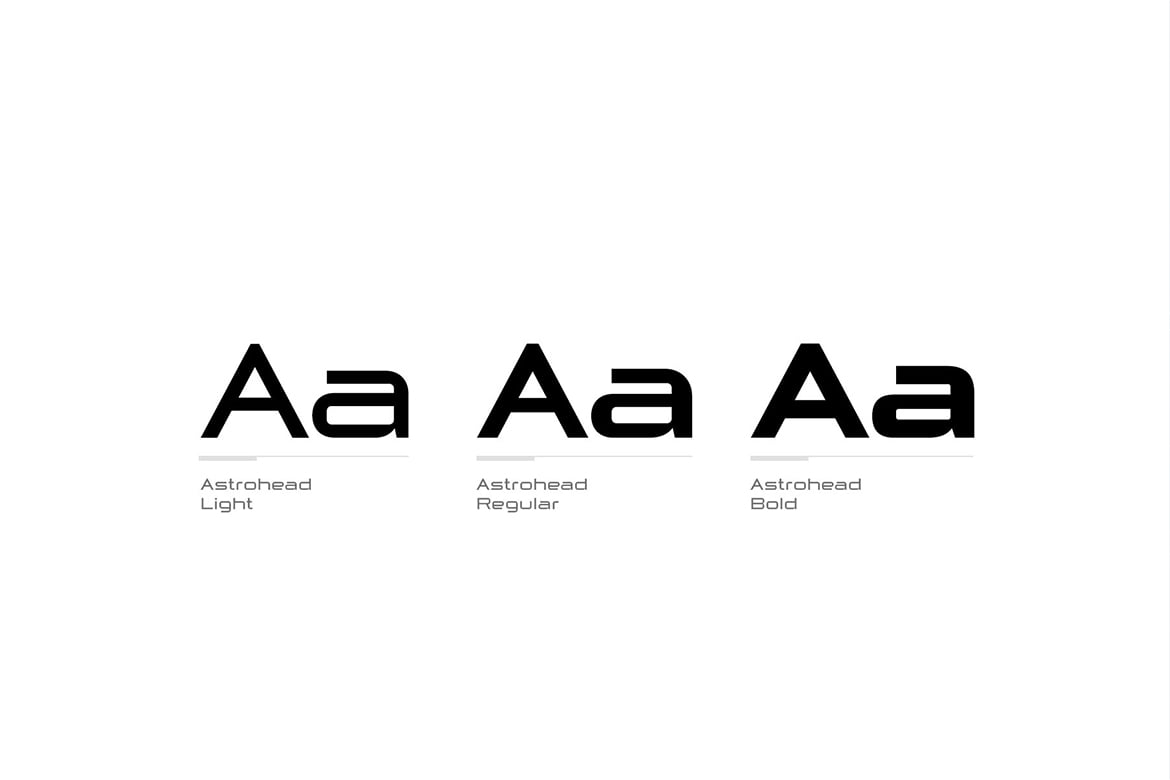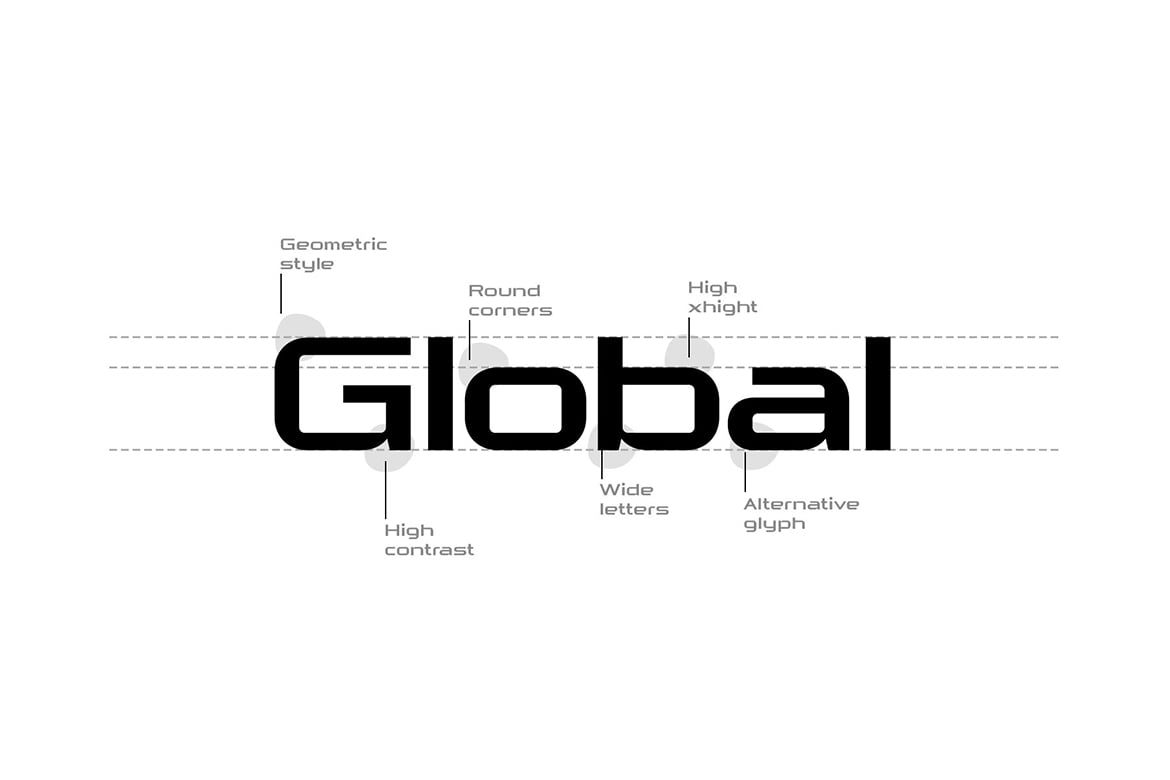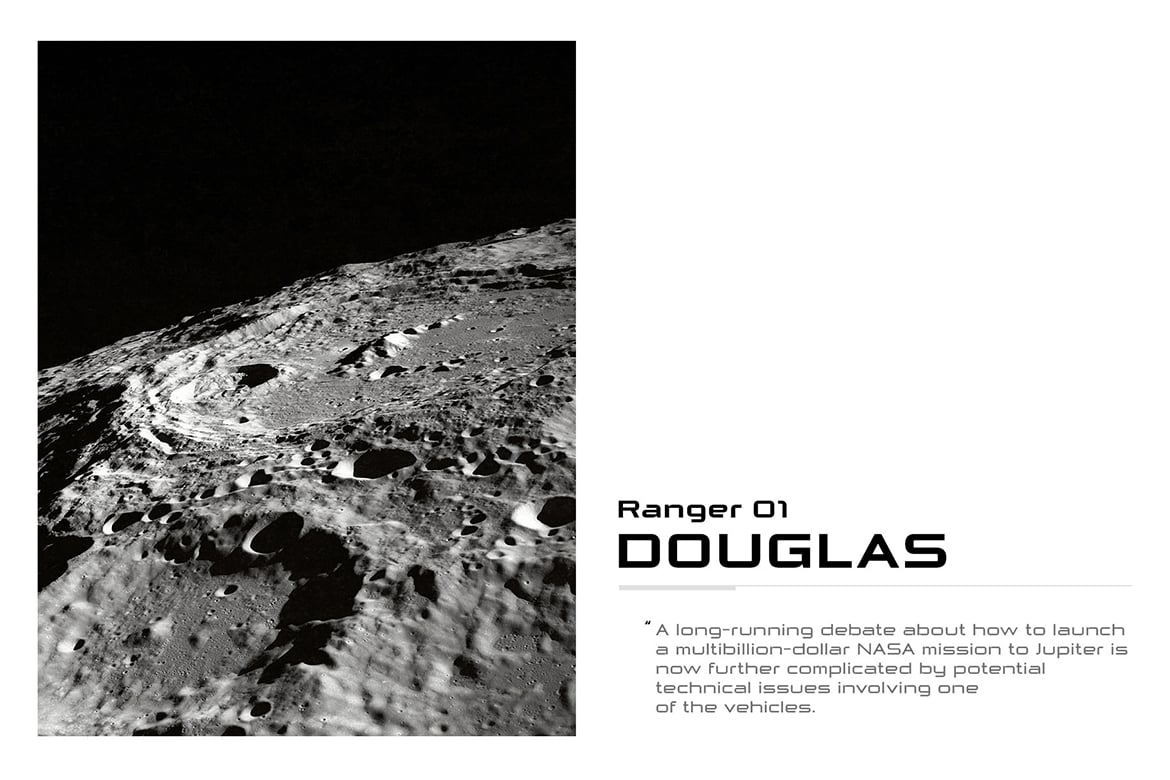
Astrohead geometric sans serif typeface
This geometric sans serif typeface takes its inspiration from the early desktop systems, and video games. This style approach gives it a distinct futuristic, old sci-fi movie titles look. Astrohead has a minimal design, with wide letterforms, a high X-height, closed apretures, short “e” finial and its overall design mixes round and sharp corners to enhance that futuristic appearance. Astrohead has three weights, uppercase and lowercase, standard Latin script with alternative glyphs for letters “a” and “t”, numerals and 100 glyphs per each font. Astrohead is the perfect choice for ultramodern designs. From video game designs, sci-fi inspired posters and movie titles to logos but can also be used for small articles and occasional texts.
Astrohead Light
Astrohead Bold
Standard Latin script language support
Upper and lowercase font